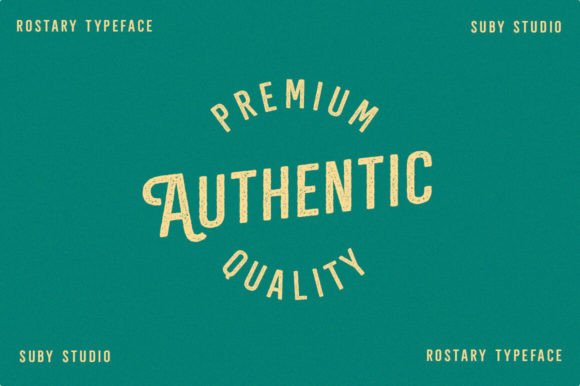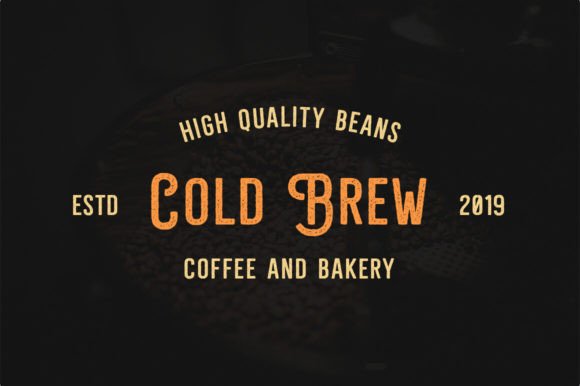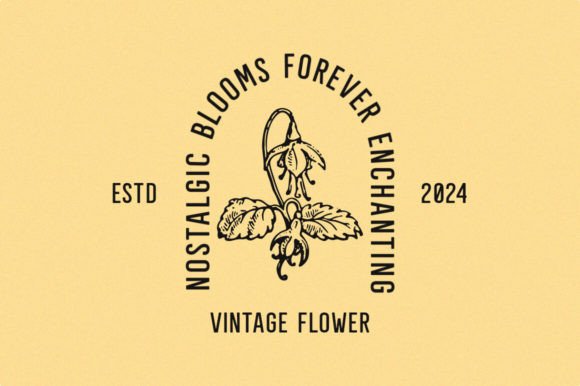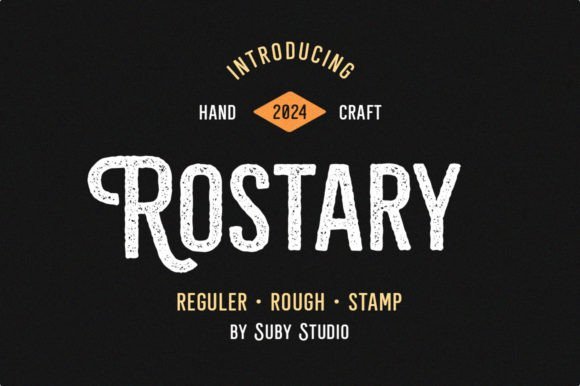
Introduction to Rostary Font
Rostary was inspired from modern vintage style.
It has 3 font styles including Regular, rough, and stamp Perfect for adding a classic touch to your designs.